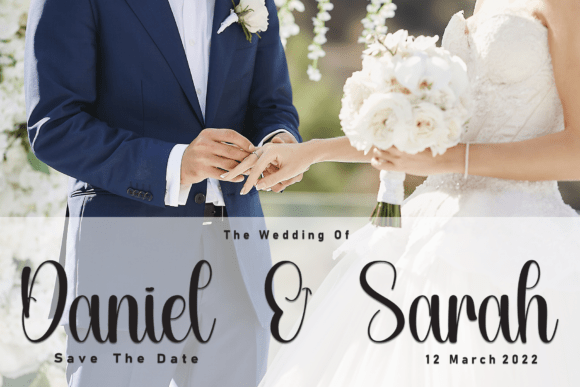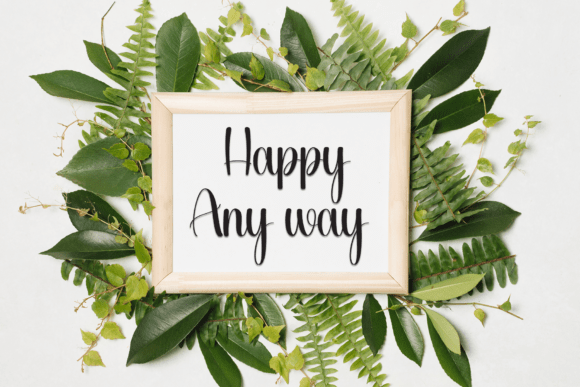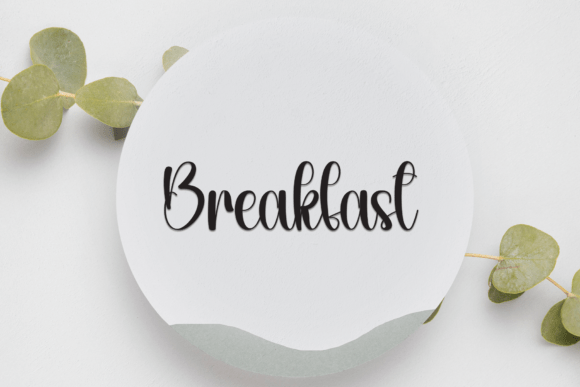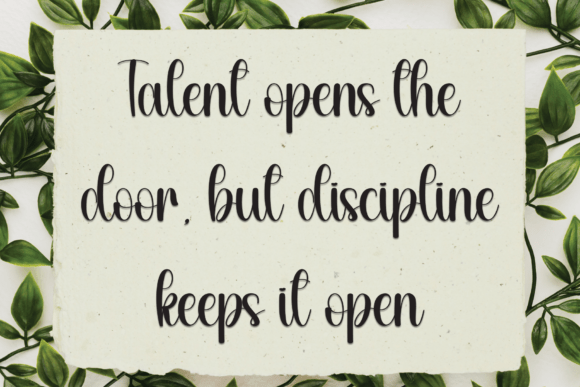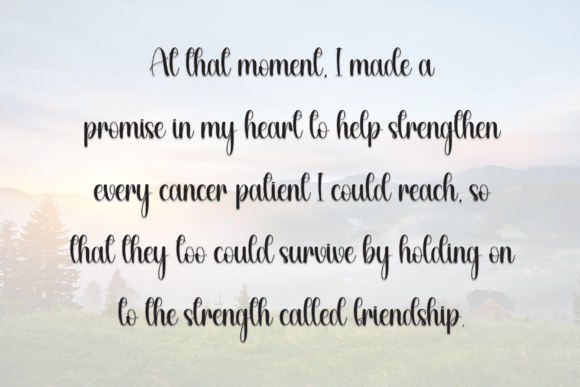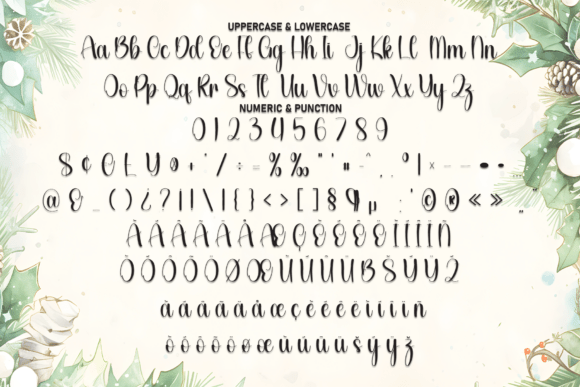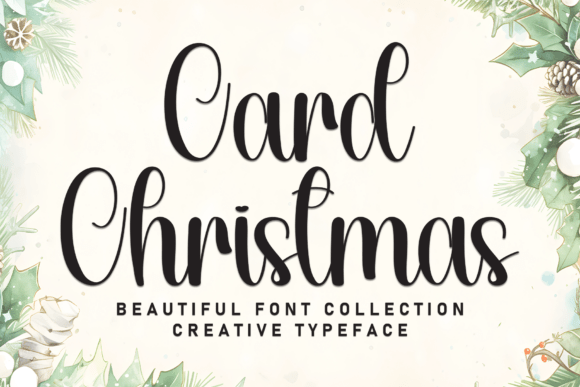
The Magic of Card Christmas Font: A Designer’s Delight
I’ll never forget the time I was working on a Christmas card project for a client, and I just couldn’t find the perfect font to capture the warmth and magic of the season. The client wanted something that would make their cards stand out, but I was stuck in a design rut. That’s when I stumbled upon the enchanting Card Christmas Font, and it was love at first sight! ✨
So, what makes Card Christmas Font so special? Let’s dive into the good stuff and a few quirks I’ve discovered. 😊
- ✨ Luxuriously etched and brushed characters that add a touch of elegance to any design
- ✅ Perfect for creating bespoke wedding invitations, greeting cards, and other creative projects
- 💫 Whimsical and charming, with a unique personality that’s hard to ignore
- 🎉 Easy to read and works well in various sizes and formats
- ⚠️ Limited availability of certain special characters or glyphs
- Experiment with OpenType features, such as ligatures and stylistic alternates, to add more flair to your design
The Designer Inspiration Behind Card Christmas Font
Card Christmas Font was designed with the intention of capturing the magic and wonder of the holiday season. The designer, inspired by traditional Christmas cards and festive typography, aimed to create a font that would evoke feelings of warmth and joy. With its luxuriously etched and brushed characters, Card Christmas Font is sure to become a favorite among designers and crafters alike.
| What type of projects is Card Christmas Font best suited for? | Card Christmas Font is perfect for creating bespoke wedding invitations, greeting cards, and other creative projects that require a touch of elegance and whimsy. |